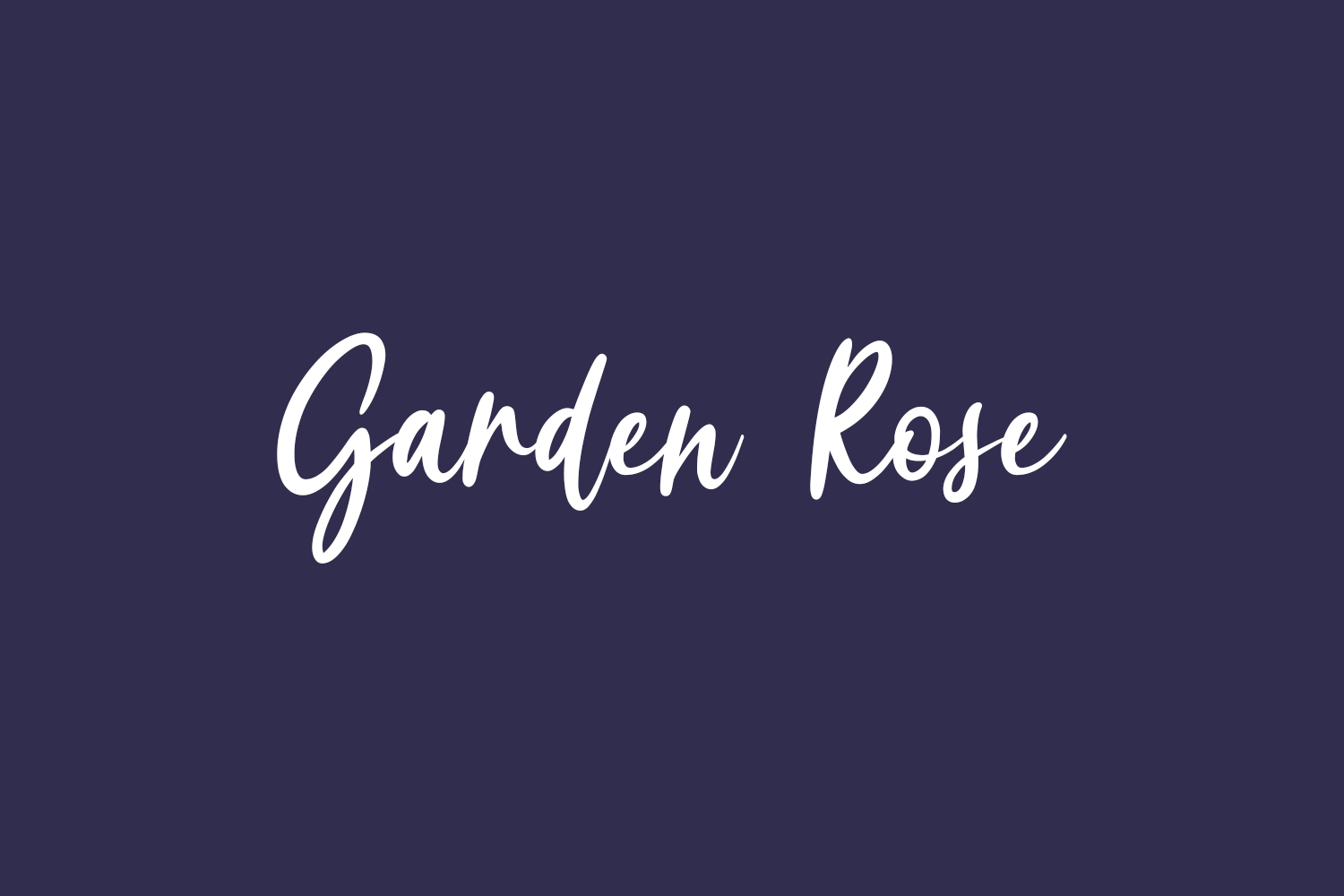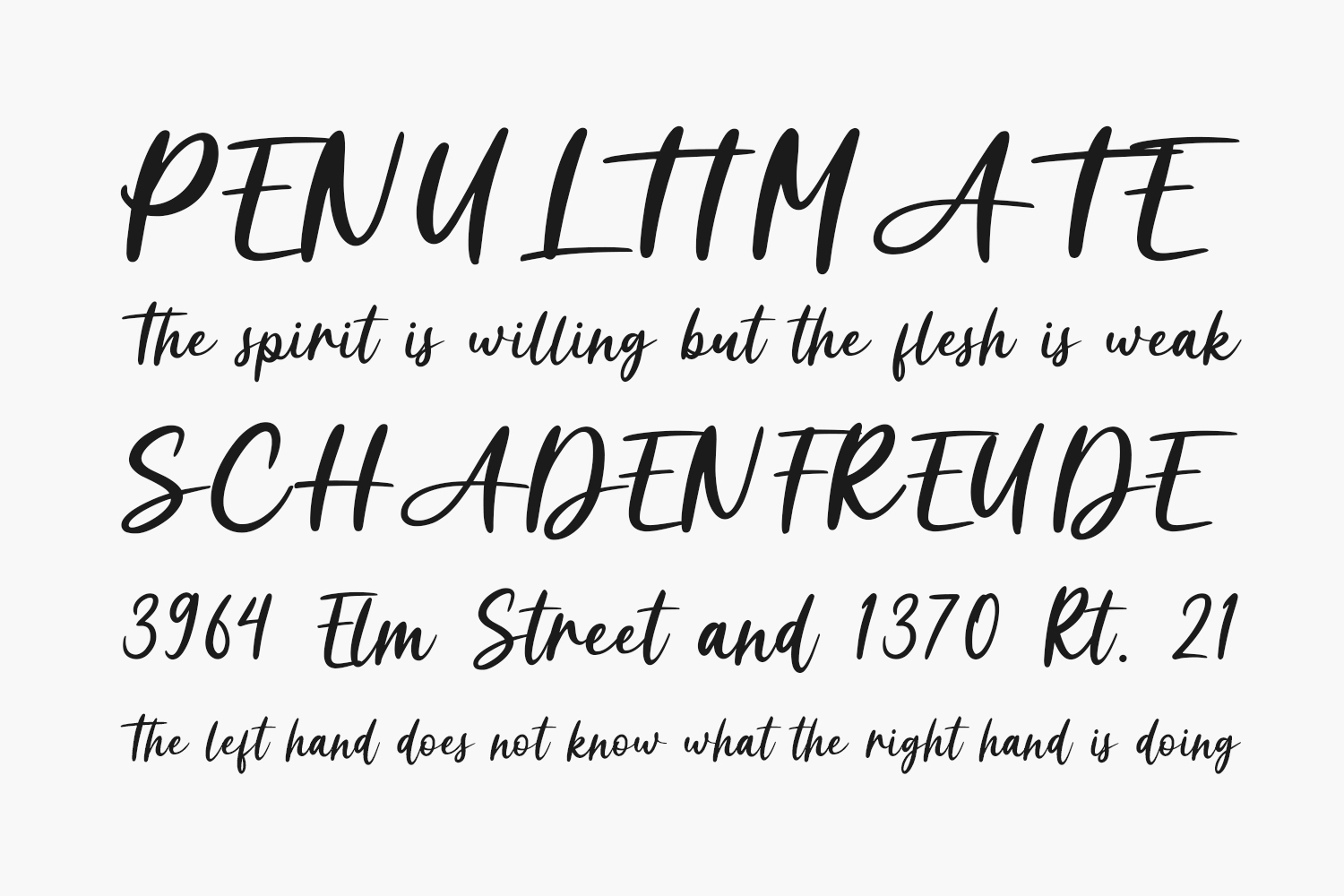
Garden Rose Free Font is a refined and dainty handwritten font. Cursive and joyful, this font will be ideal for writing wedding invitations, cards, branding, printing or any other design that may need a romantic, personalized touch. Garden Rose Free Font was designed by Graphix Line Studio and is free for personal use only. Please purchase the full version for commercial use.